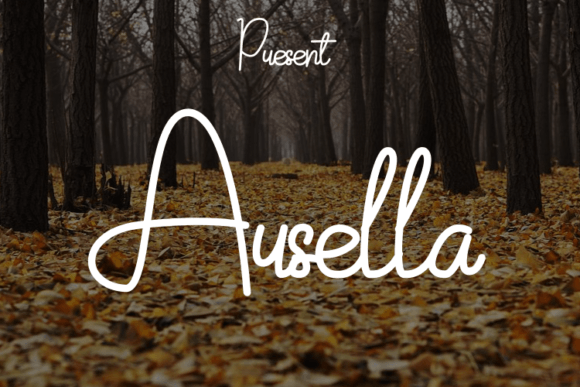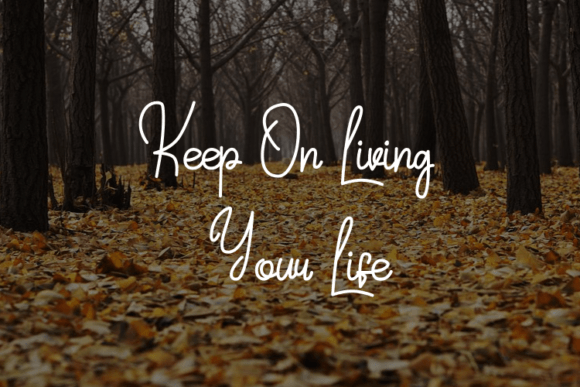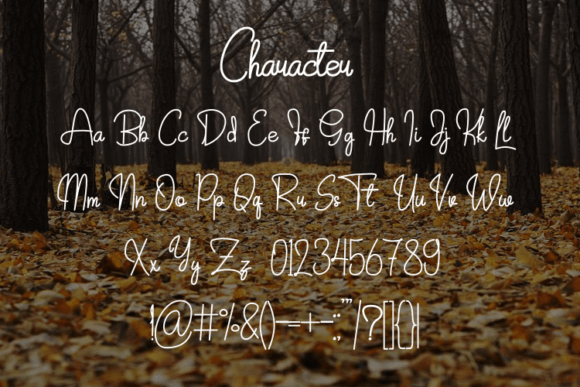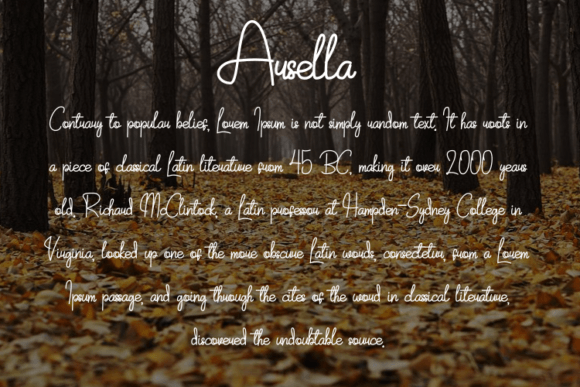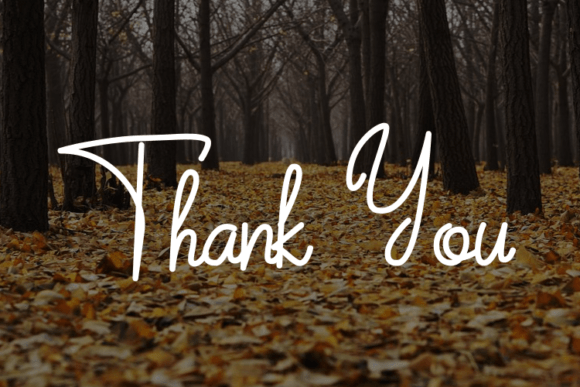
Arsella Font
Arsella Font: Cute and Casual Script for Charming Designs
“Arsella” is a delightful handwritten script font that brings a relaxed and approachable vibe to your design projects. Its beautiful, well-balanced characters make it perfect for various creative applications.
Key Features of Arsella Font
• Cute Style: Arsella adds a charming and friendly feel to designs.
• Well-Balanced Characters: Creates a harmonious flow in typography.
• Versatile Use: Suitable for many projects, from greeting cards to branding materials.
Invitations and Stationery
Arsella’s casual style is ideal for creating warm and inviting wedding invitations and personal stationery.
Branding and Marketing
Use Arsella to design approachable logo designs and marketing materials that convey a friendly brand image.
Social Media and Digital Content
The font’s charming look makes it perfect for creating engaging social media graphics and digital content.
Why Choose Arsella Font?
Arsella offers more than just cute letters. Here’s why it stands out:
• Enhances designs with a sense of charm and approachability
• Creates a visually pleasing and harmonious typography
• Adapts well to various design contexts and needs
By using Arsella, you open up new design possibilities. Its casual style works well in many contexts, from poster designs to website headers. The font’s ability to convey friendliness can inspire creative ideas and help you approach projects from a fresh, approachable perspective.
Arsella in Modern Design Trends
This font aligns perfectly with design trends that favor authenticity and personal touch. Its handwritten style adds a unique quality that resonates with audiences seeking genuine connections, making it particularly effective for brands targeting a friendly, approachable image.
If you’re looking for a font that’s both cute and versatile, Arsella is an excellent choice. It’s perfect for adding a touch of charm to your work, especially for projects that need a relaxed, inviting feel.
Explore how Arsella can transform your designs. From branding projects to personal creations, this font brings a delightful and engaging quality to your work.